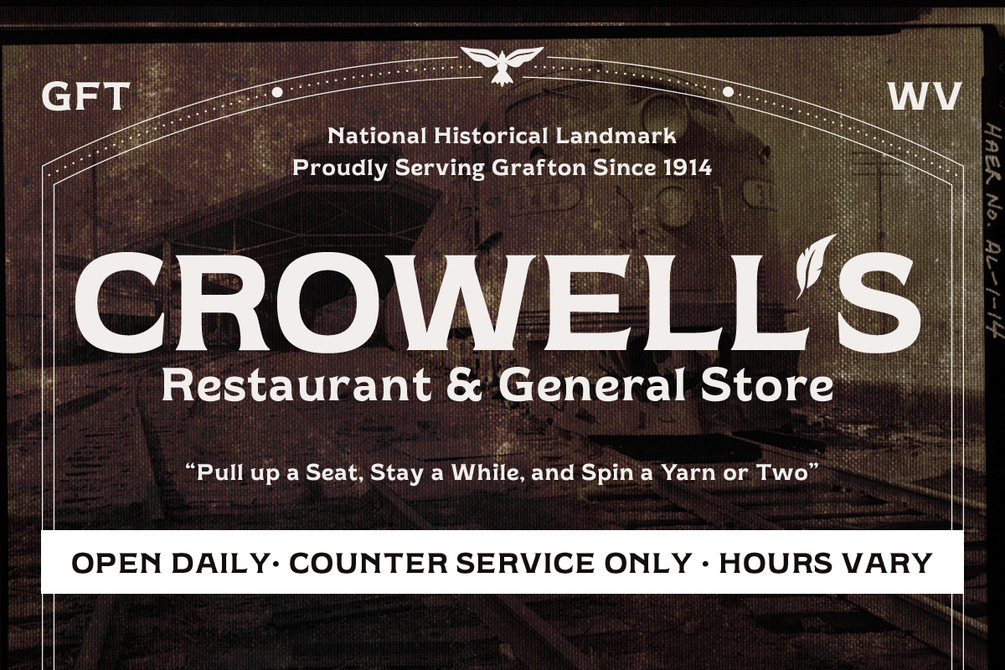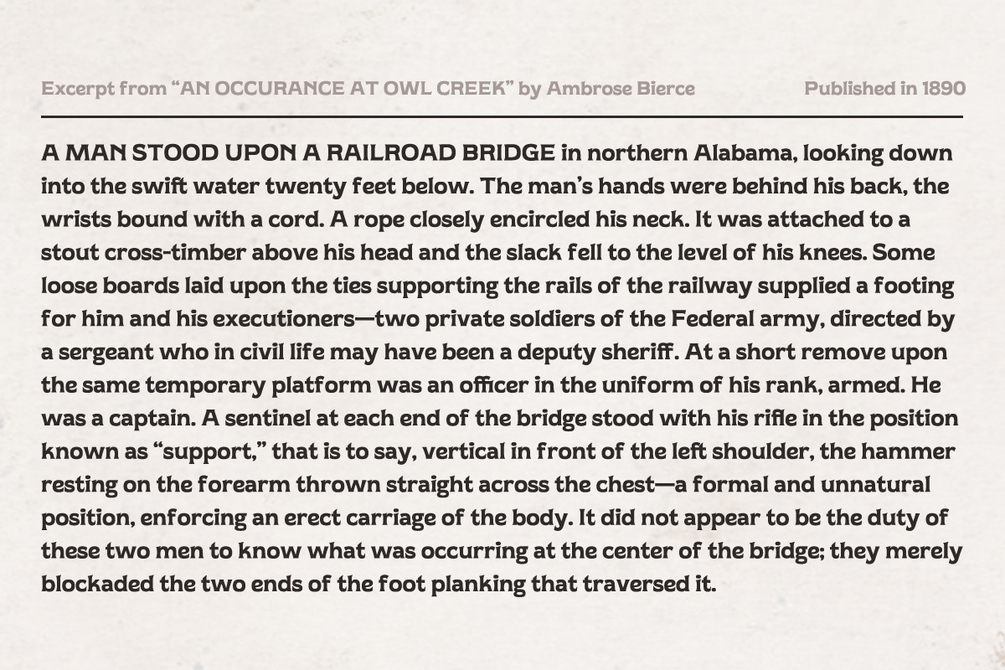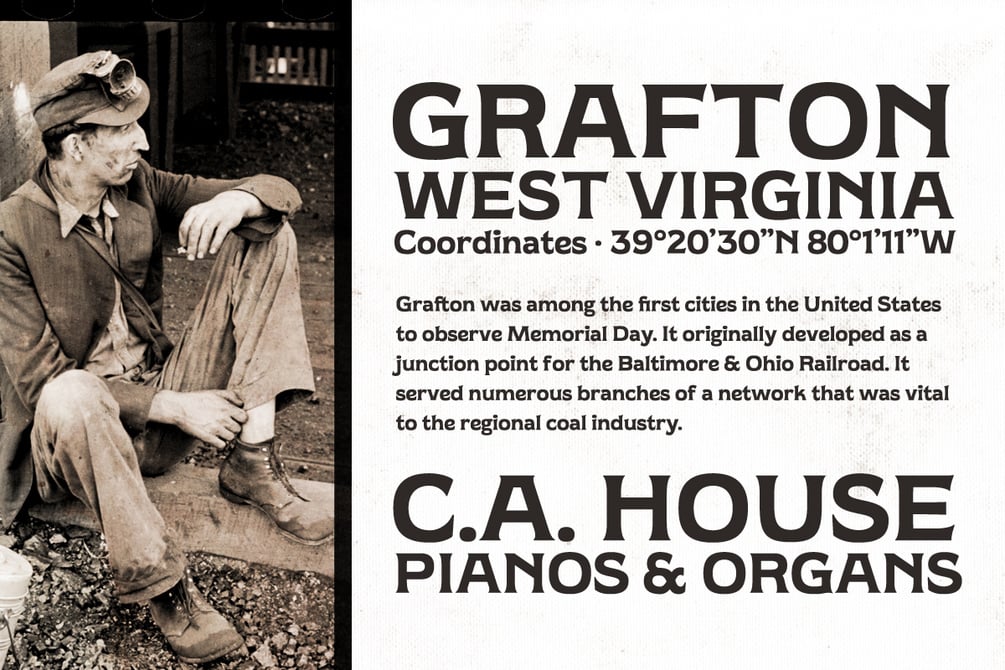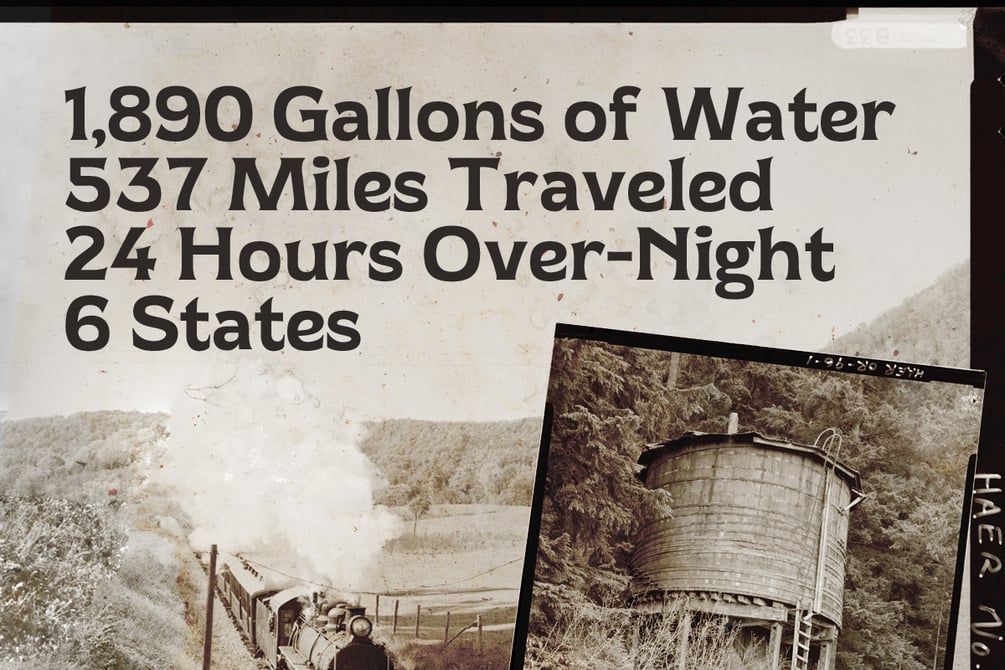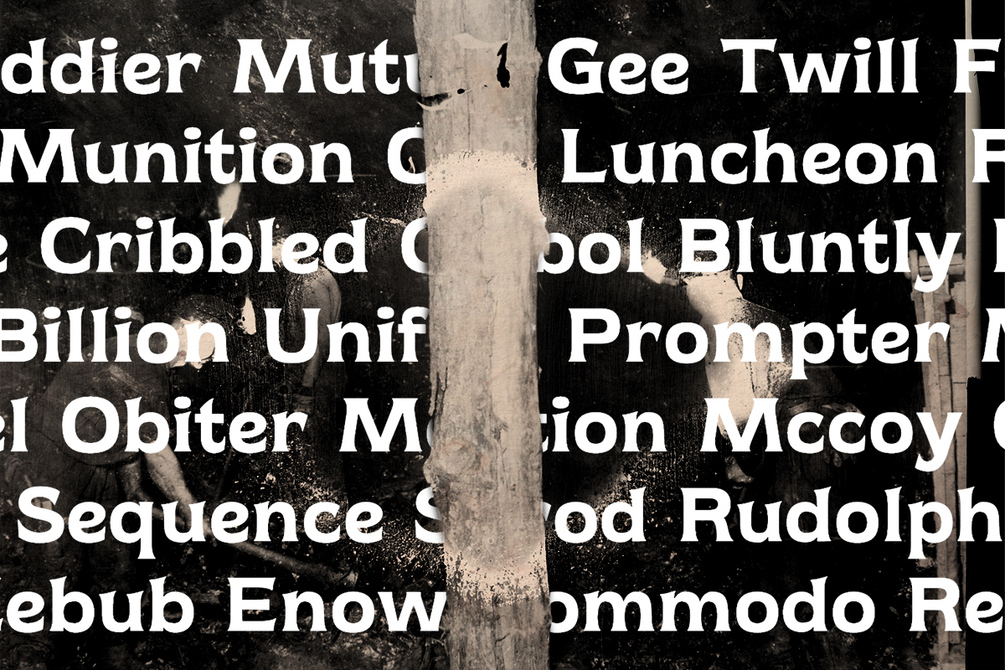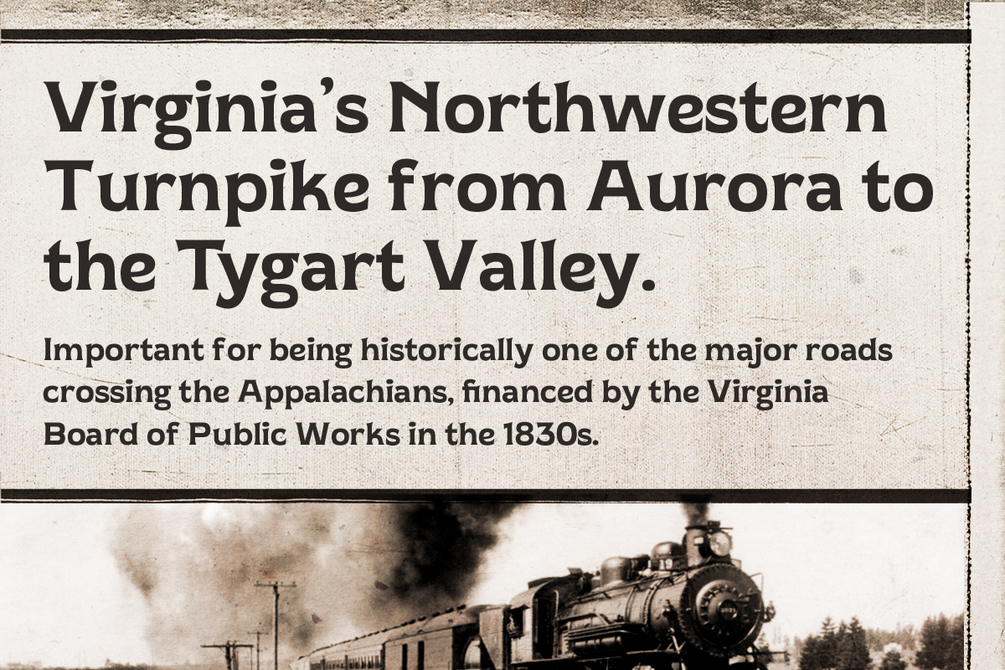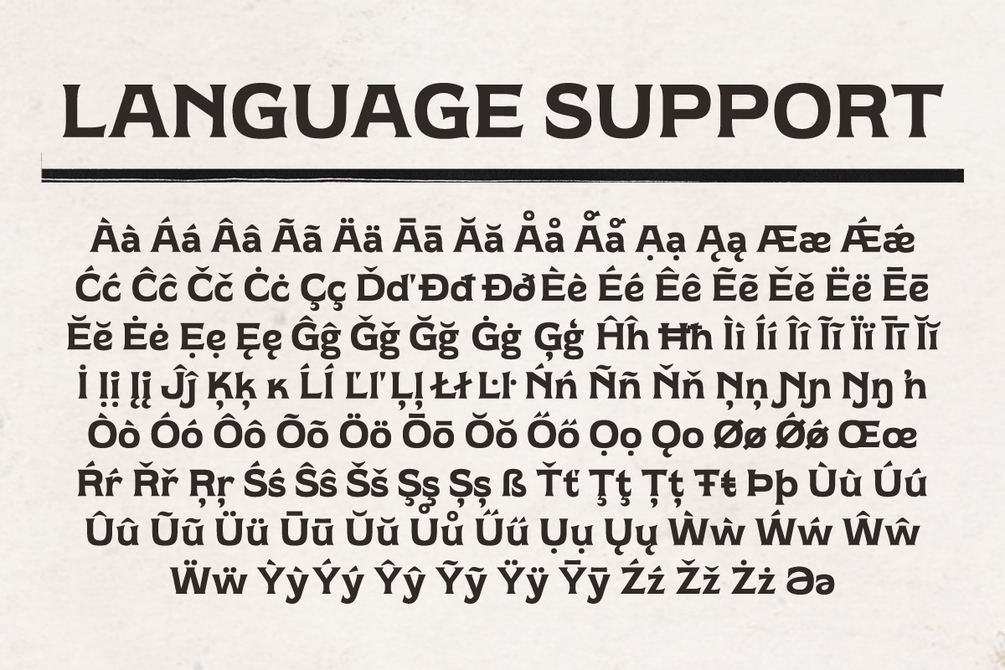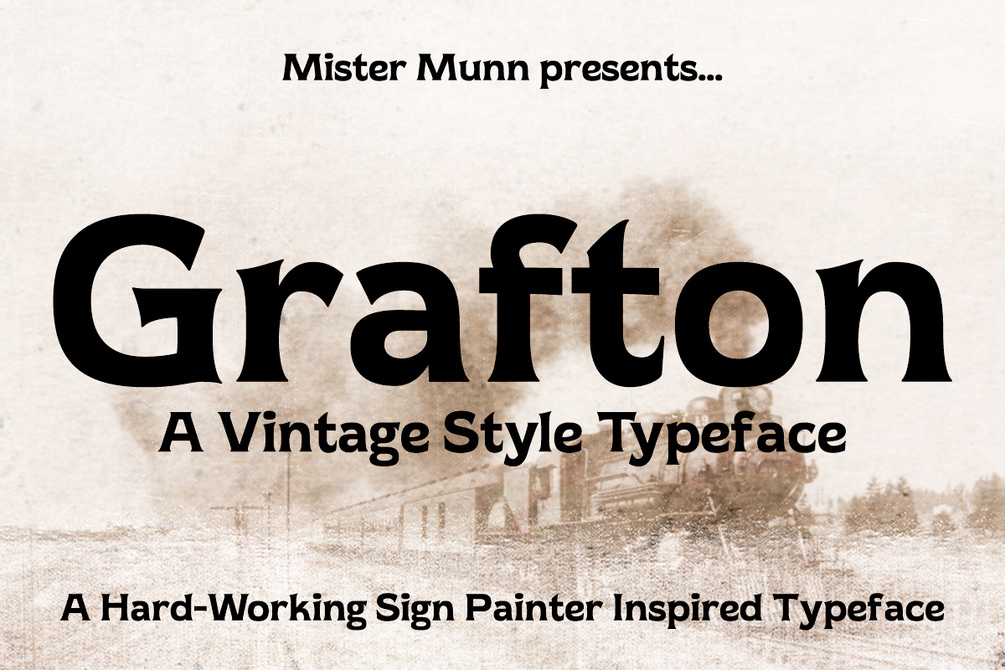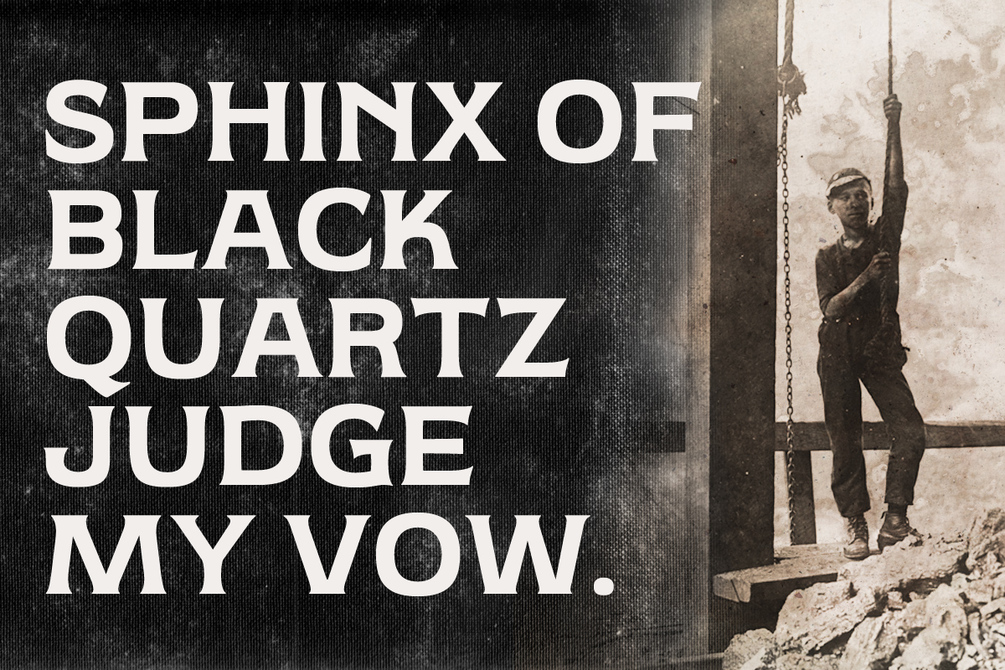
Grafton Typeface
Grafton is a vintage-inspired typeface ready when you need a slice of rural Americana, but want the full apple pie. Inspired by small-town ghost signage, these sturdy letters look good whether in big billboard headlines or more hand-held reading experiences.
Grafton has full language support with a vast library of diacritics, able to say, "Hello" to any and everyone in the Latin language with ease.